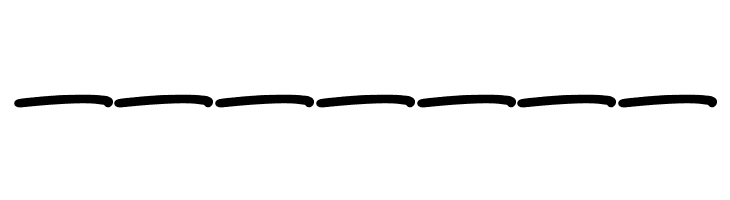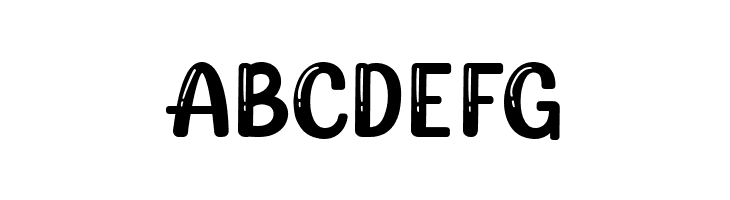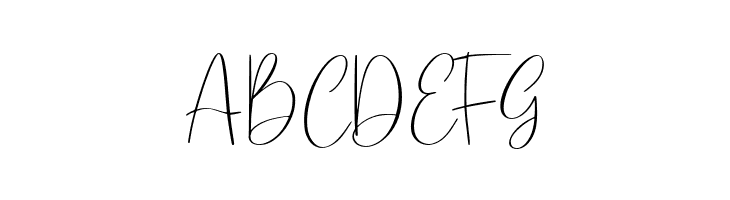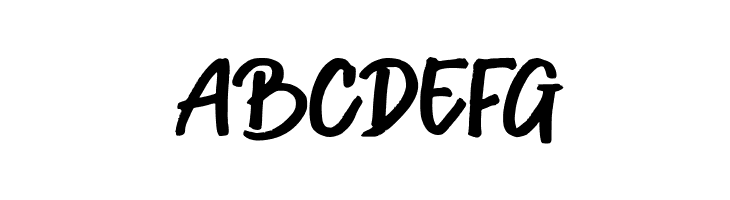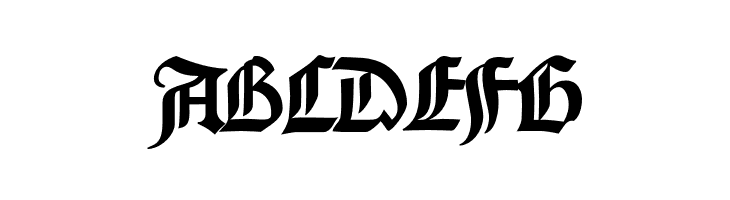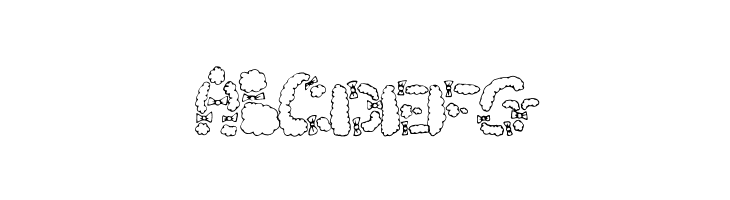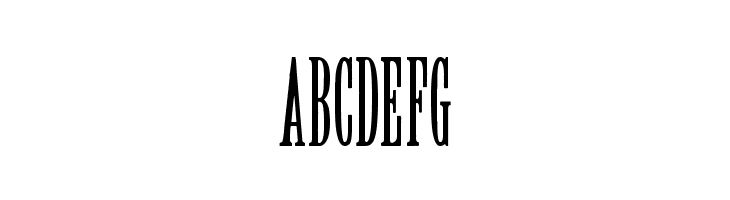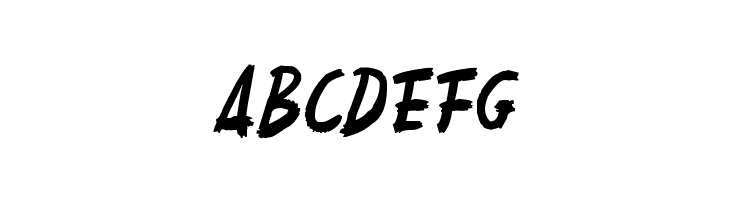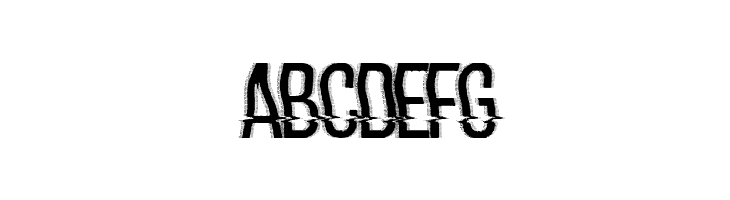
A tall, narrow serif font with high contrast and elegant style.
A whimsical, elegant handwritten font with a playful and artistic style.
A playful, bold font with rounded edges and a bubbly, whimsical style.
A playful, hand-drawn style font with wavy, consistent strokes.
A bold and ornate Blackletter font with intricate, angular letterforms.
A bold, expressive handwritten font with dynamic strokes and playful elegance.
A bold, distorted font with a glitch art style, perfect for modern, edgy designs.
A whimsical, playful font with cloud-like textures and bow accents.